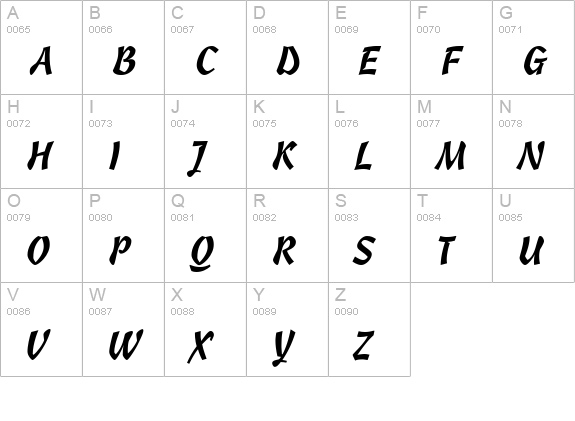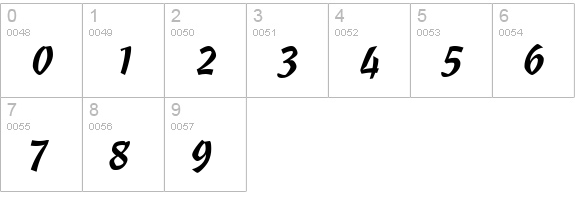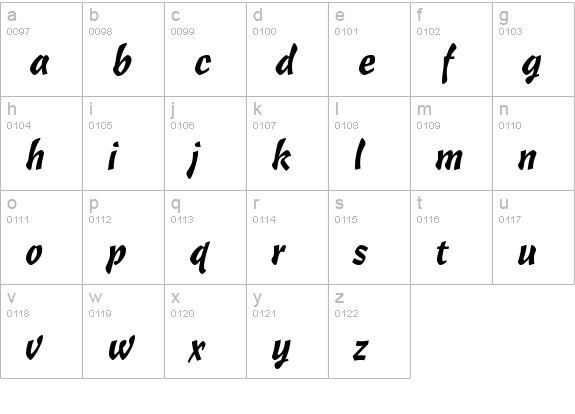
Ole' Script SSi Font Details
Ole' Script SSi is a charming and elegant script font that exudes a sense of whimsy and sophistication. Its flowing lines and graceful curves make it perfect for adding a touch of personality to any design project. Whether you're working on invitations, logos, or branding materials, this font is sure to make a statement. The best part? Ole' Script SSi is completely free to download at FontsMarket.com. That's right, you can elevate your designs with this beautiful font without spending a dime. So why wait? Head over to FontsMarket.com now and add Ole' Script SSi to your collection of must-have fonts.